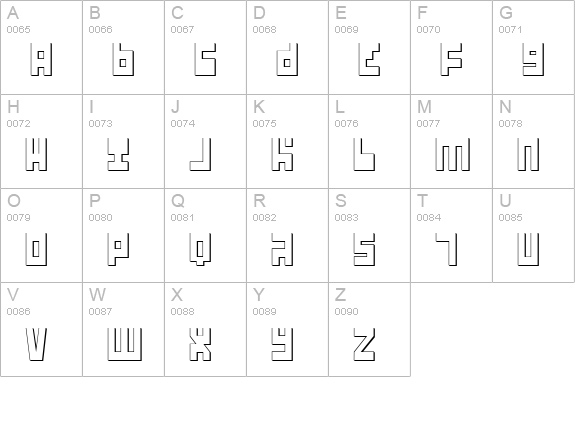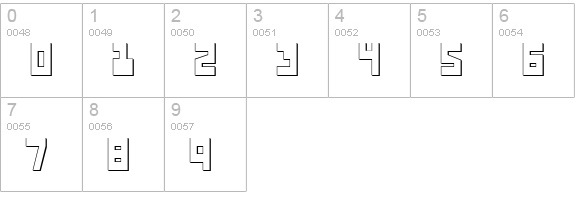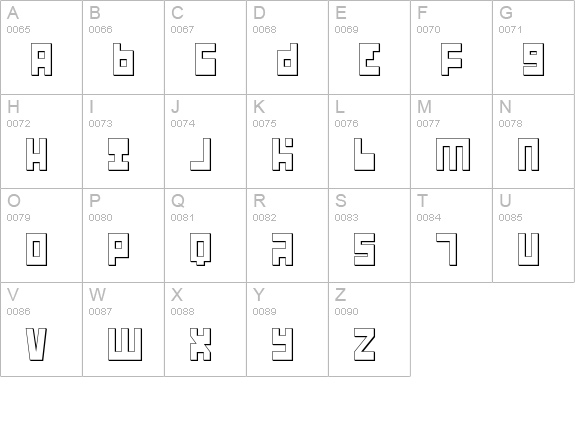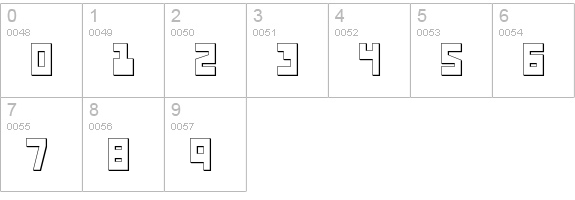
Introducing UFO Hunter 3D font, a futuristic and extraterrestrial-inspired typeface that will take your designs to new dimensions! This unique font features bold, three-dimensional lettering that will make your projects stand out from the crowd. Whether you're working on a sci-fi movie poster, a space-themed website, or a futuristic branding project, UFO Hunter 3D font is the perfect choice to add a touch of otherworldly charm. With its sleek lines and modern aesthetic, this font is sure to capture the attention of any audience. The 3D effect gives the letters a sense of depth and movement, creating a dynamic and engaging visual experience. Whether you're a graphic designer, a web developer, or a creative enthusiast, UFO Hunter 3D font is sure to become a valuable addition to your font collection. Best of all, UFO Hunter 3D font is available for free download at FontsMarket.com. That's right – you can get your hands on this amazing font without spending a dime! So why wait? Elevate your designs with the captivating and futuristic style of UFO Hunter 3D font today. Download it now and let your creativity take flight!